Silverfox Events uses the elegant San de More font across its website and social media to reflect the exclusivity and sophistication of their bespoke event planning services.
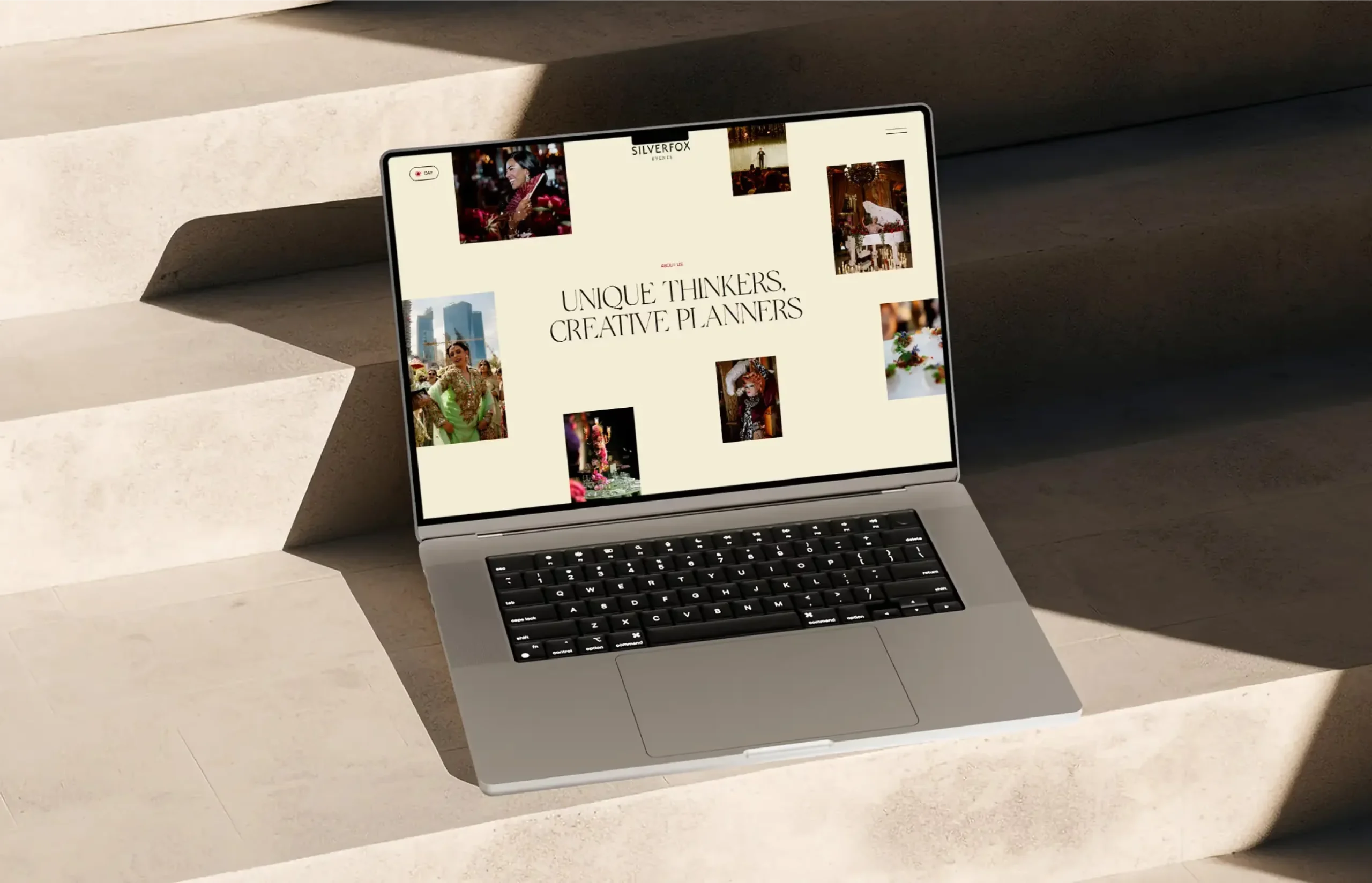
Silverfox Events is a premier luxury event planning and management company based in London, led by experts Raj and Sheetal Somaiya. Specializing in high-profile corporate events, exclusive private parties, and bespoke destination weddings across global locations like Dubai, Paris, and London, the brand is synonymous with flawless execution and world-class experiences. Their visual identity is carefully curated to convey the same level of sophistication, meticulous attention to detail, and premium exclusivity that their discerning clientele expects from their extraordinary services.
To encapsulate this luxurious aesthetic, Silverfox Events relies on the San de More font across their digital presence, prominently featuring it on their official website and social media platforms. The font’s high-contrast strokes, refined serifs, and graceful curves perfectly harmonize with the brand’s high-end photography and sophisticated color palette. By utilizing San de More for their primary headings, editorial layouts, and promotional materials, the company successfully establishes a distinguished, timeless tone that immediately communicates luxury and top-tier professionalism to their audience.